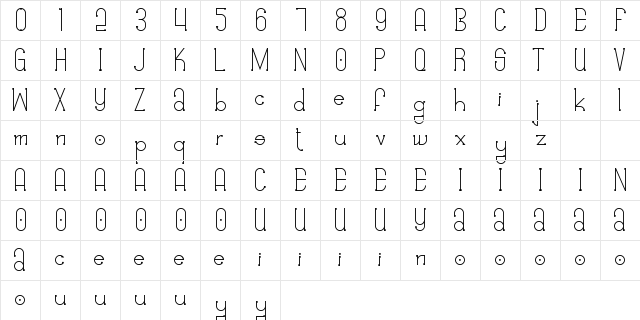
Fafa Yagalo Regular Font Preview
Fafa Yagalo Regular
Design Context for Fafa Yagalo Typeface
Fafa Yagalo takes a measured approach to typography — its balanced proportions and neutral character make it a reliable workhorse for both digital and print work.